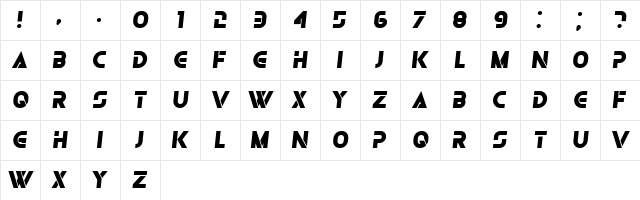
Olga Black Italic
Design Context for Olga Typeface
Olga takes a measured approach to typography — its balanced proportions and neutral character make it a reliable workhorse for both digital and print work. Its italic angle brings a sense of urgency and motion to the letterforms.
Pro Tip: Try Olga for annotation and caption copy alongside an upright companion — the contrast in angle creates a dynamic but ordered typographic system.